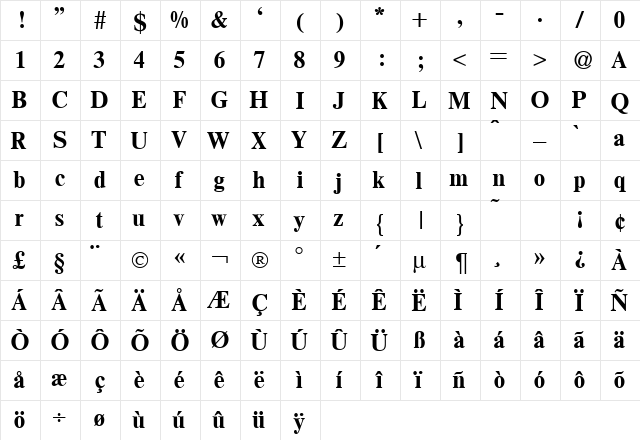
Timothy Bold
Design Context for Timothy Typeface
Timothy is a composed and adaptable typeface that performs quietly and consistently across a wide range of design contexts. The heavy weight commands attention and anchors typographic hierarchies.